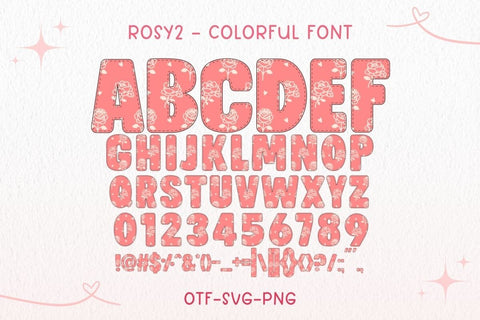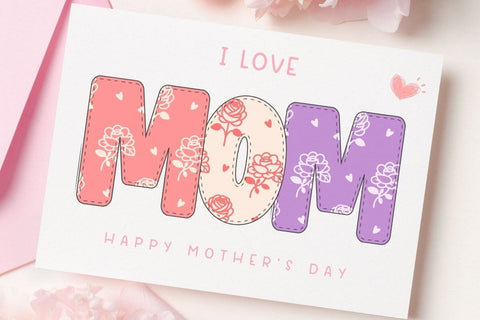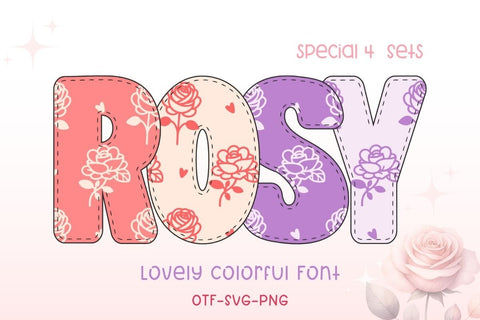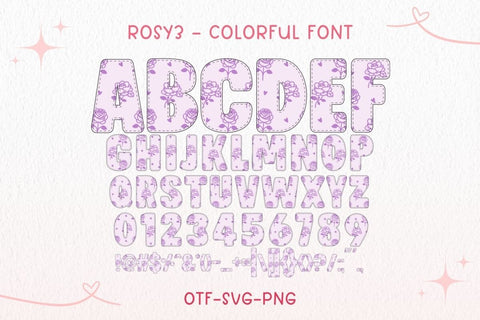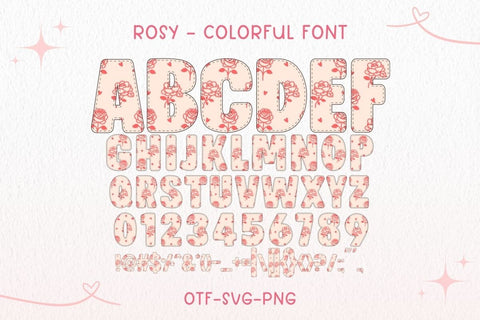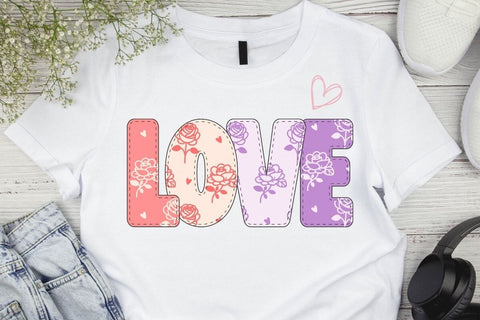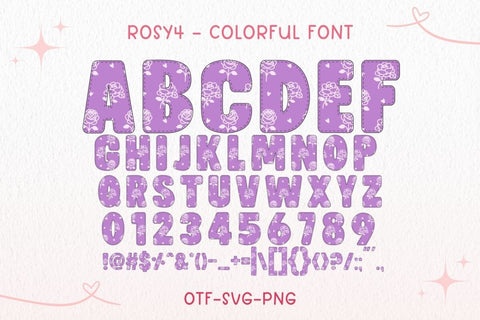
Rosy - Color Font for Sublimation and Craft Projects
Rosy is a charming, colorful font set with 4 pastel floral styles! Each letter is filled with delicate rose illustrations and cute heart details, perfect for sweet and feminine designs.